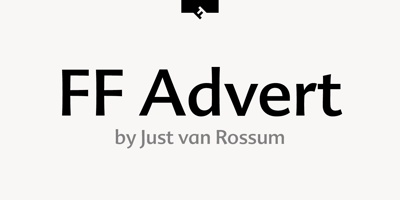
FF Advert
FF Advert font
FF Advert Font Family was designed by Just van Rossum and published by FontFont. FF Advert contains 4 styles and family package options. Dutch type designer Just van Rossum created this sans FontFont in 1991. The family contains 4 weights: Light, Regular, Bold, and Black and is ideally suited for advertising and packaging projects. FF Advert provides advanced typographical support with features such as ligatures, alternate characters, case-sensitive forms, fractions, super- and subscript characters, and stylistic alternates. It comes with a complete range of figure set options – oldstyle and lining figures, each in tabular and proportional widths. This FontFont is a member of the FF Advert super family, which also includes FF Advert Rough.